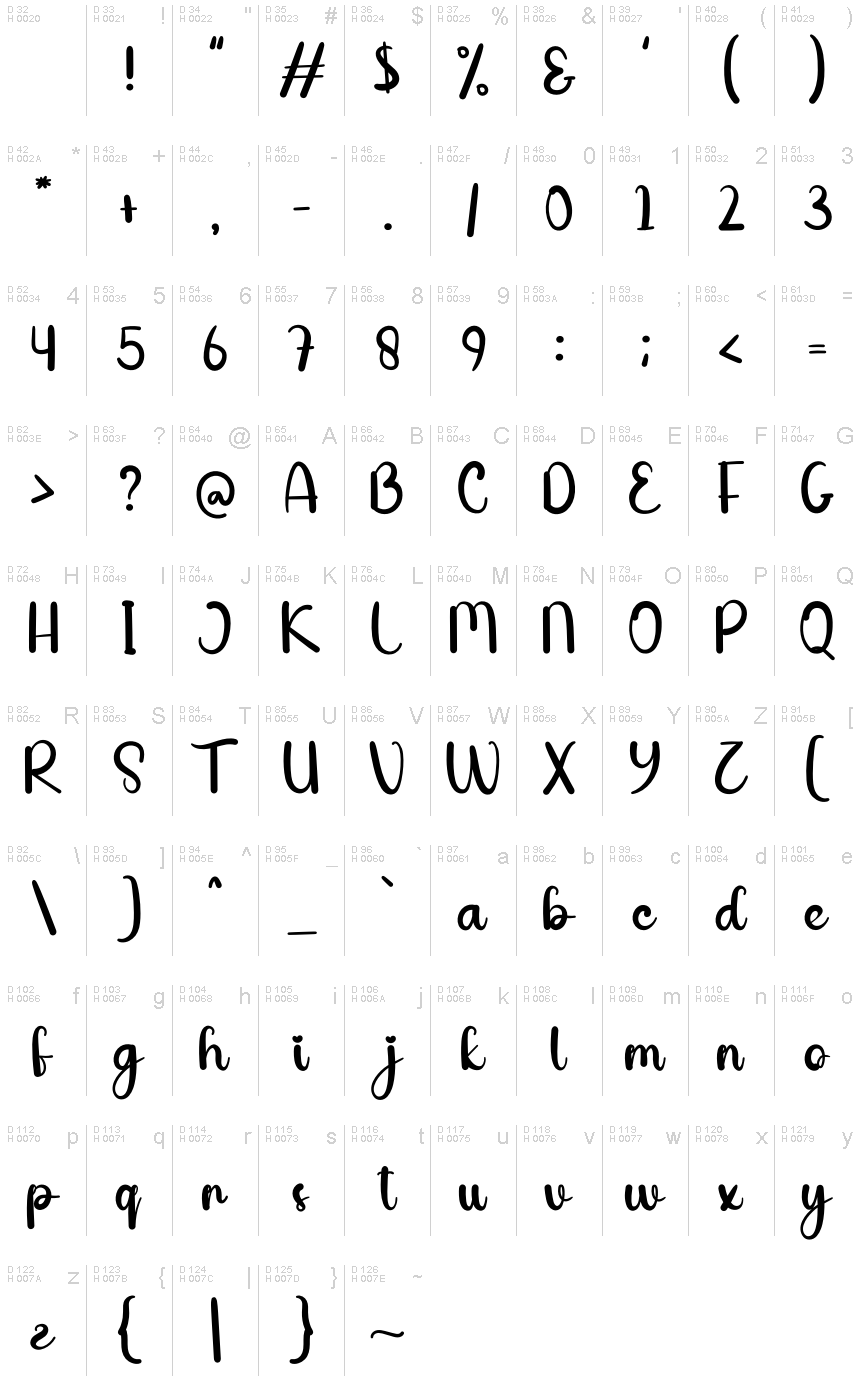
Sunmory
Sunmory is a captivating handwritten font that exudes a distinct blend of elegance and whimsy. Designed by Andi Moz, this font boasts a fluid, organic script that effortlessly conveys a sense of warmth and personality. The gently sloping letterforms and graceful ligatures create a harmonious rhythm, making Sunmory an ideal choice for a variety of design applications, from invitations and greeting cards to branding and editorial layouts. Its versatile nature allows it to seamlessly transition between formal and casual settings, making it a valuable asset in the designer's toolkit.
Sunmory's distinctive character and versatility make it a compelling option for projects seeking to evoke a handcrafted, artisanal aesthetic. Whether used as a headline, subheading, or body text, this font's unique charm is sure to captivate and engage audiences, elevating the visual appeal of any design.